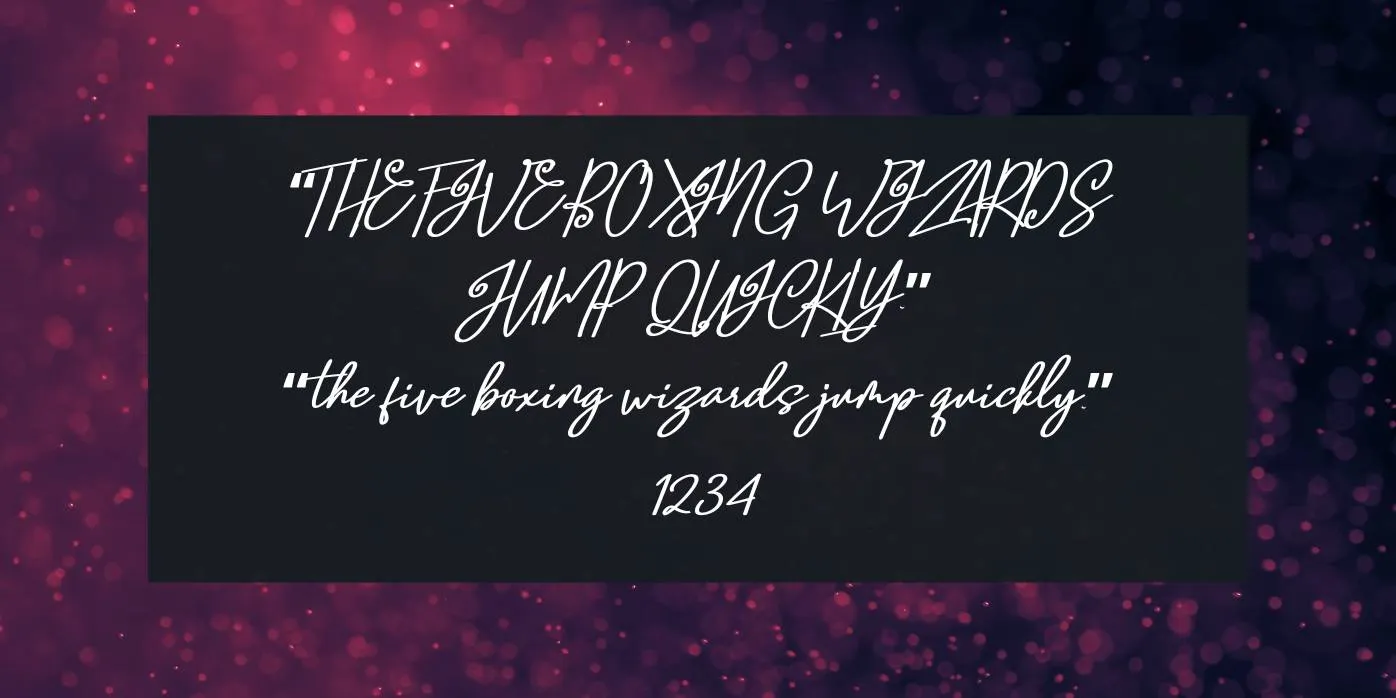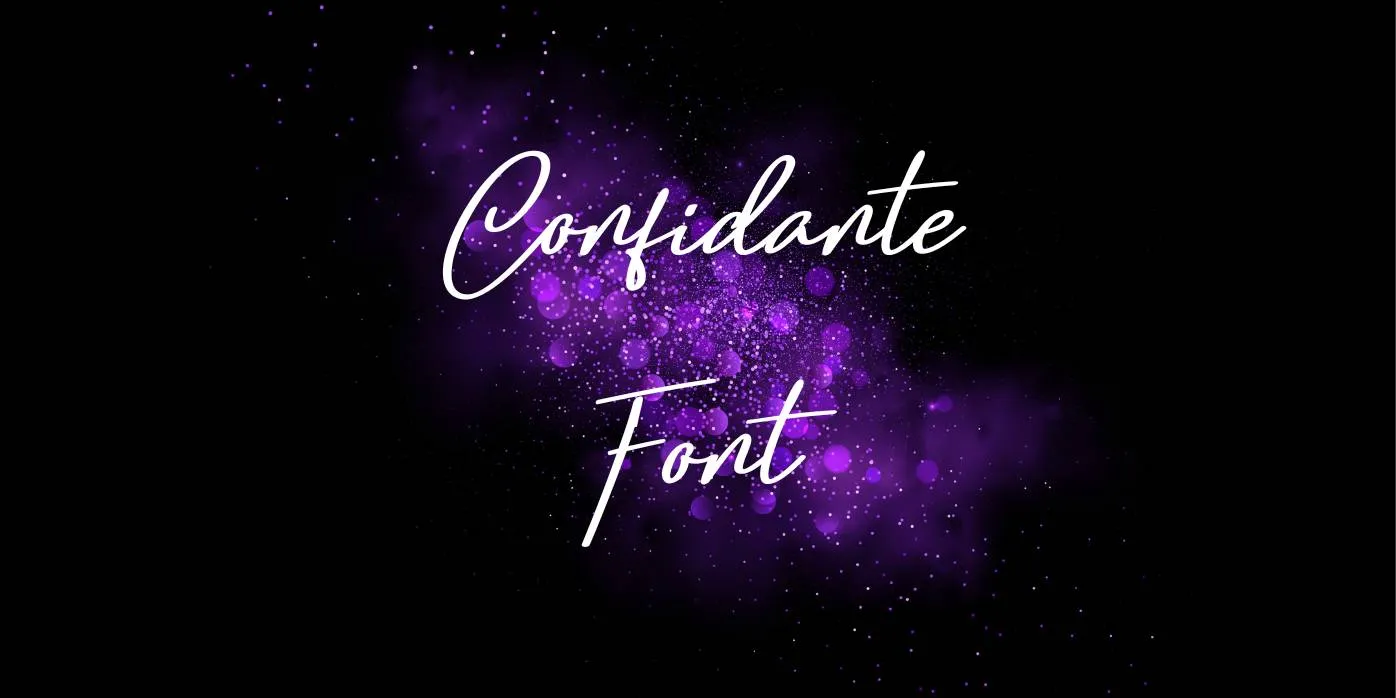
Confidante Font
Here we talk about a very unique and classy handwritten font Confidante. It was designed by Alifirman. This font can be read easily on screens and other projects. It is available in the SIL Open Font License and for using it in your projects you can download it from this site.
It contains 70 characters, 74 glyphs, and 1000 units per Em. An online generator tool is also available for this font in which you can check your work online without downloading the font. Embedding rights are allowed for preview and printing only in this font. It supports file formats TTF (True Type Font) and OTF (Open Type Font).
You can download it on many devices such as Windows, IOS, and MAC. The weight of the font is semi-light and its width is medium. Mac style follows by it is Bold. The pattern nature for this typeface is Italic and its pitch is not monospaced.
It can also be used for pairing with other fonts like my bestie font to give a more attractive look to your projects. Copy-paste function can also be used in this font. Usage It has so many different features and you can use it in different projects. This font has unique characters, small letters, capital letters, punctuations, symbols, and special characters.
It is considered a good font for large-type projects. You can make amazing headlines using this font. For making designs on a website you can use it. This amazing font can also be used in PowerPoint, MS Word, And Microsoft Exel.
On the Book cover, titles, and magazine cover you can also use this typeface. Wedding invitations and other event invitations can be written by using it. You can make different attractive logos and other printed materials by using them. It is a good choice for both print and digital media.